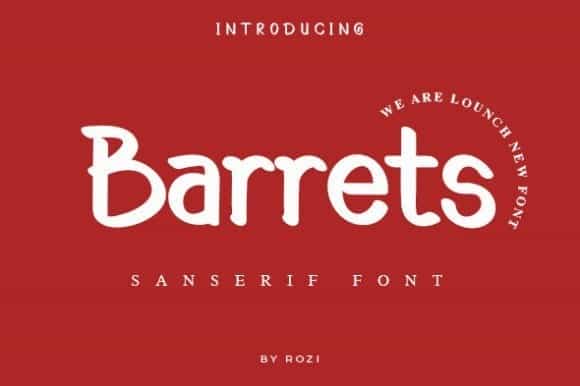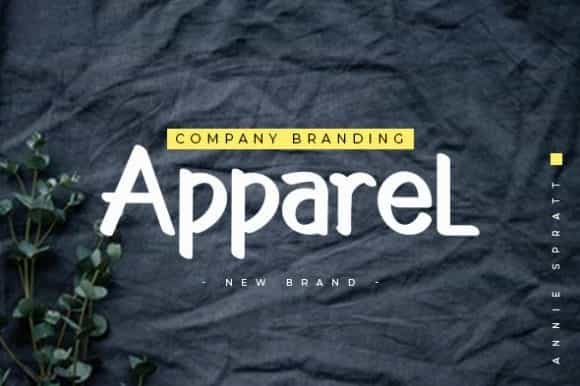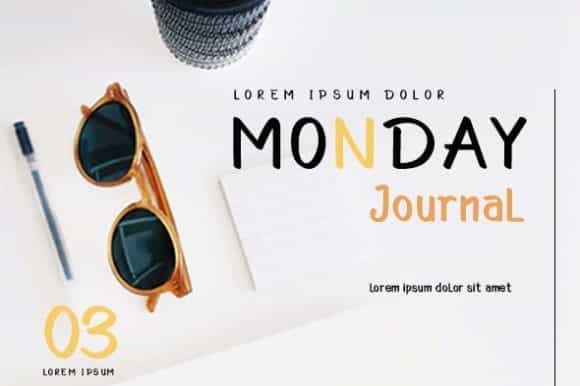
Barrets is a plain and informal sans serif font that has an unmistakable clean look. The neat and perfect arrangement of letters in this font will make it look great both in the formal and non-formal designs.